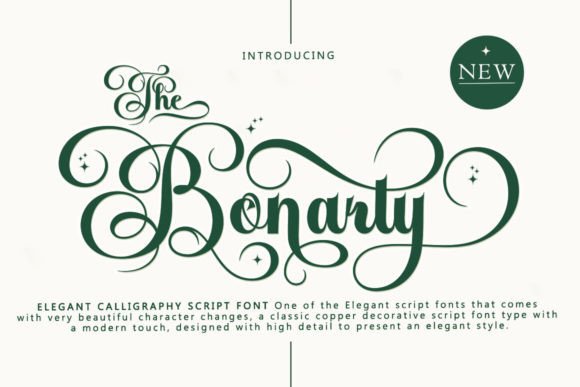
The Bonarty Font: Unleashing Creativity with Elegant Script Typography
In the world of typography, fonts play a crucial role in conveying messages, expressing emotions, and creating visual identities. Among the numerous fonts available, the Bonarty Font stands out for its unique blend of classic and modern elements. This elegantly designed script font merges traditional copper decorative scripting with a fresh, modern twist, making it an excellent choice for creative projects. In this article, we’ll explore the features, benefits, and applications of the Bonarty Font, and how it can help unleash your creativity.
Key Features of the Bonarty Font
- Elegant Script Design: The Bonarty Font boasts an undeniable sense of elegance, with attractive and eye-pleasing typography that speaks of femininity, sensuality, and glamour.
- Classic Copper Decorative Scripting: The font merges traditional copper decorative scripting with a modern twist, creating a unique and distinctive look.
- Clean Simplicity: The Bonarty Script features clean simplicity, making it exceptionally easy to read and understand.
- Luxurious Letter Connections: The font’s luxurious letter connections give it a distinct uniqueness, setting it apart from other script fonts.
Benefits of Using the Bonarty Font
The Bonarty Font offers several benefits for creative professionals, designers, and businesses. Some of the advantages of using this font include:
- Enhanced Visual Appeal: The Bonarty Font’s elegant design and luxurious letter connections make it perfect for projects that require a touch of sophistication and glamour.
- Improved Readability: The font’s clean simplicity and classic design ensure that your text is easy to read and understand, making it ideal for body text and headings.
- Versatility: The Bonarty Font can be used in a wide range of applications, from branding and advertising to packaging and digital media.
- Uniqueness: The font’s distinctive design and luxurious letter connections make it stand out from other script fonts, ensuring that your project gets noticed.
Applications of the Bonarty Font
The Bonarty Font is a versatile typography solution that can be used in various applications, including:
- Branding and Identity: Use the Bonarty Font to create elegant and sophisticated brand identities, including logos, business cards, and letterheads.
- Advertising and Marketing: The font’s luxurious design makes it perfect for advertising and marketing materials, such as brochures, flyers, and social media graphics.
- Packaging: The Bonarty Font can be used to create eye-catching packaging designs that stand out on store shelves.
- Digital Media: Use the font to create engaging digital content, including website headers, email newsletters, and social media posts.
Tips and Tricks for Using the Bonarty Font
To get the most out of the Bonarty Font, follow these tips and tricks:
- Use it Sparingly: Use the Bonarty Font sparingly to create visual interest and emphasis. Overusing the font can make your design look cluttered and overwhelming.
- Pair it with Other Fonts: Pair the Bonarty Font with other fonts to create visual contrast and hierarchy. Choose fonts that complement the elegant design of the Bonarty Font.
- Adjust Font Size and Color: Experiment with different font sizes and colors to create visual interest and emphasis.
- Use it for Headings and Titles: Use the Bonarty Font for headings and titles to create a lasting impression and add a touch of elegance to your design.
The Bonarty Font is an elegantly designed script typography solution that merges classic copper decorative scripting with a fresh, modern twist. With its clean simplicity, luxurious letter connections, and undeniable sense of elegance, this font is perfect for creative projects that require a touch of sophistication and glamour. By understanding the features, benefits, and applications of the Bonarty Font, you can unleash your creativity and take your design projects to the next level.